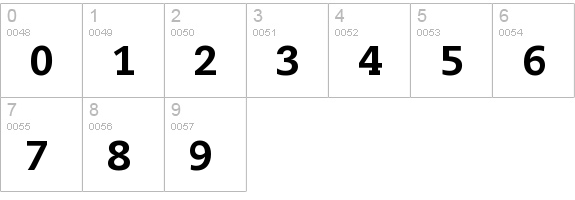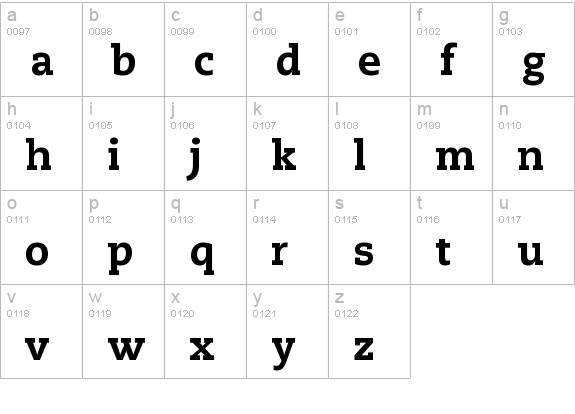
Monologue Black SSi Black is a maximum-weight, dramatic variant in the Monologue typeface family \xE2\x80\x94 well suited to maximum-impact headlines, posters, and packaging.